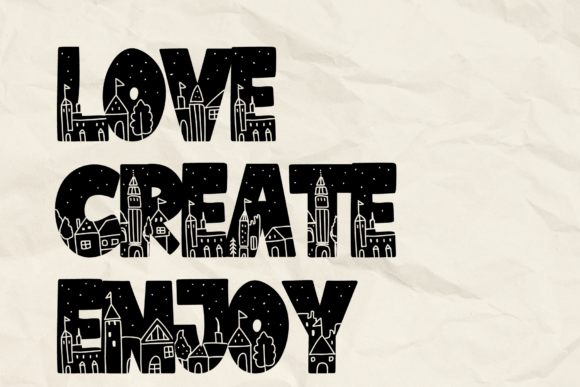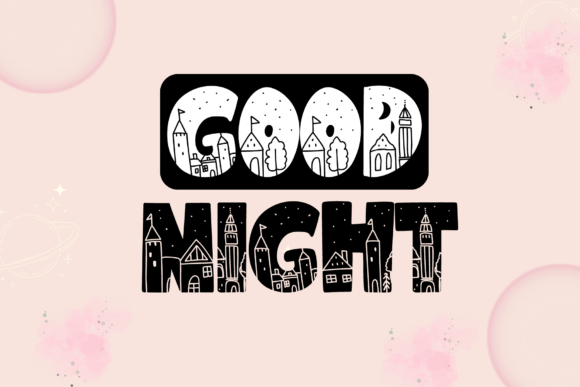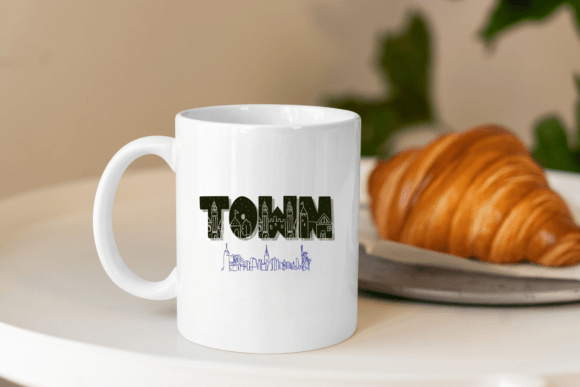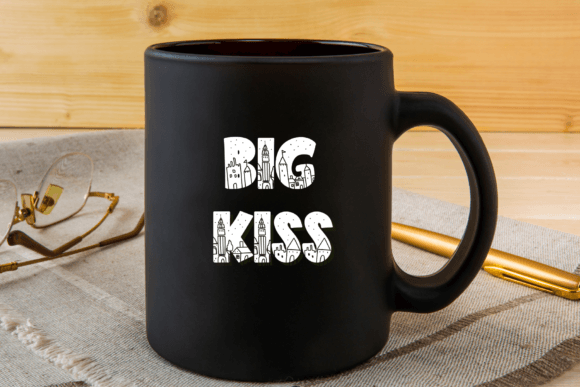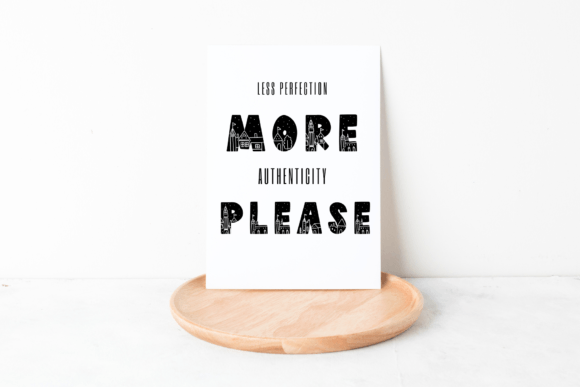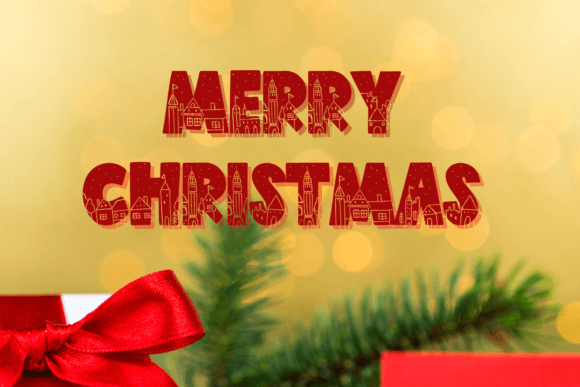
Introduction to Dream City Font Font
Fonts play a crucial role in design, and the Dream City Font font is a typeface that brings both character and versatility to any project. Whether you’re working on a branding project, a website, or a print design, the Dream City Font font offers a unique style that can elevate your work.
Dream City is a cute and friendly display font.
It will add elegance and class to any of your design projects, perfect for casual types in greeting cards, illustrations, quotes, quaint branding, book covers, childrenβs books, packaging and so much more .
Key Features of Dream City Font Font
Why Choose Dream City Font Font?
The Dream City Font font is more than just a typeface β it’s a design tool that helps you communicate your message with style and clarity. Its unique character set and versatile design make it suitable for a wide range of applications, from elegant invitations to bold headlines.
With its carefully crafted letterforms and balanced proportions, the Dream City Font font ensures readability and visual appeal across all mediums.
What makes Dream City Font font special?
The Dream City Font font stands out with its unique design, exceptional readability, and versatility across various design applications.